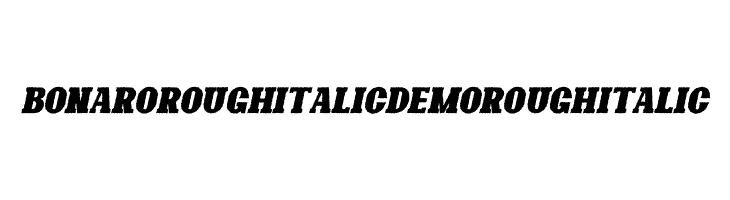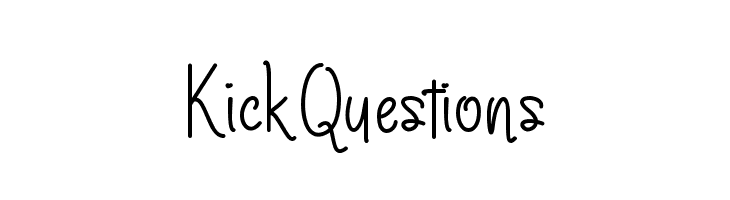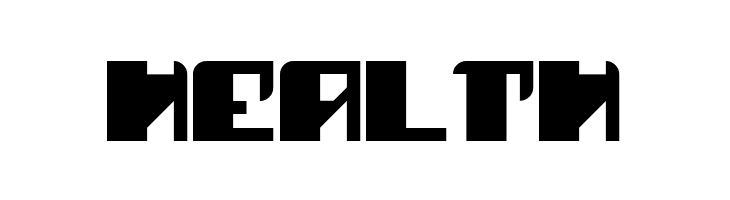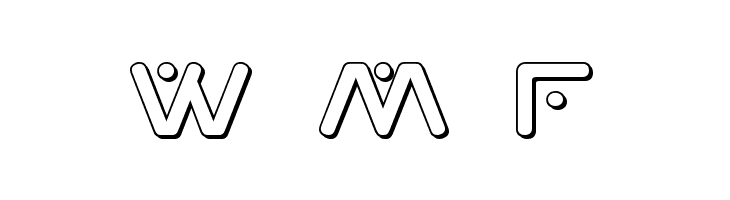
A bold, geometric font with a futuristic and industrial design.
A playful, handwritten font with smooth curves and a casual style.
A bold, three-dimensional font with a modern, geometric style and shadow effects.
A bold, italicized font with a modern and dynamic style.
A playful, hand-drawn font with tall, narrow characters and rounded edges.
A decorative font with characters encased in ornate leaf patterns.
An elegant, flowing script font with decorative swirls and flourishes.
A bold, playful font with rounded, outlined characters.
A bold, cursive script font with a dynamic and elegant style.
A playful and elegant handwritten font with fluid, flowing letterforms.